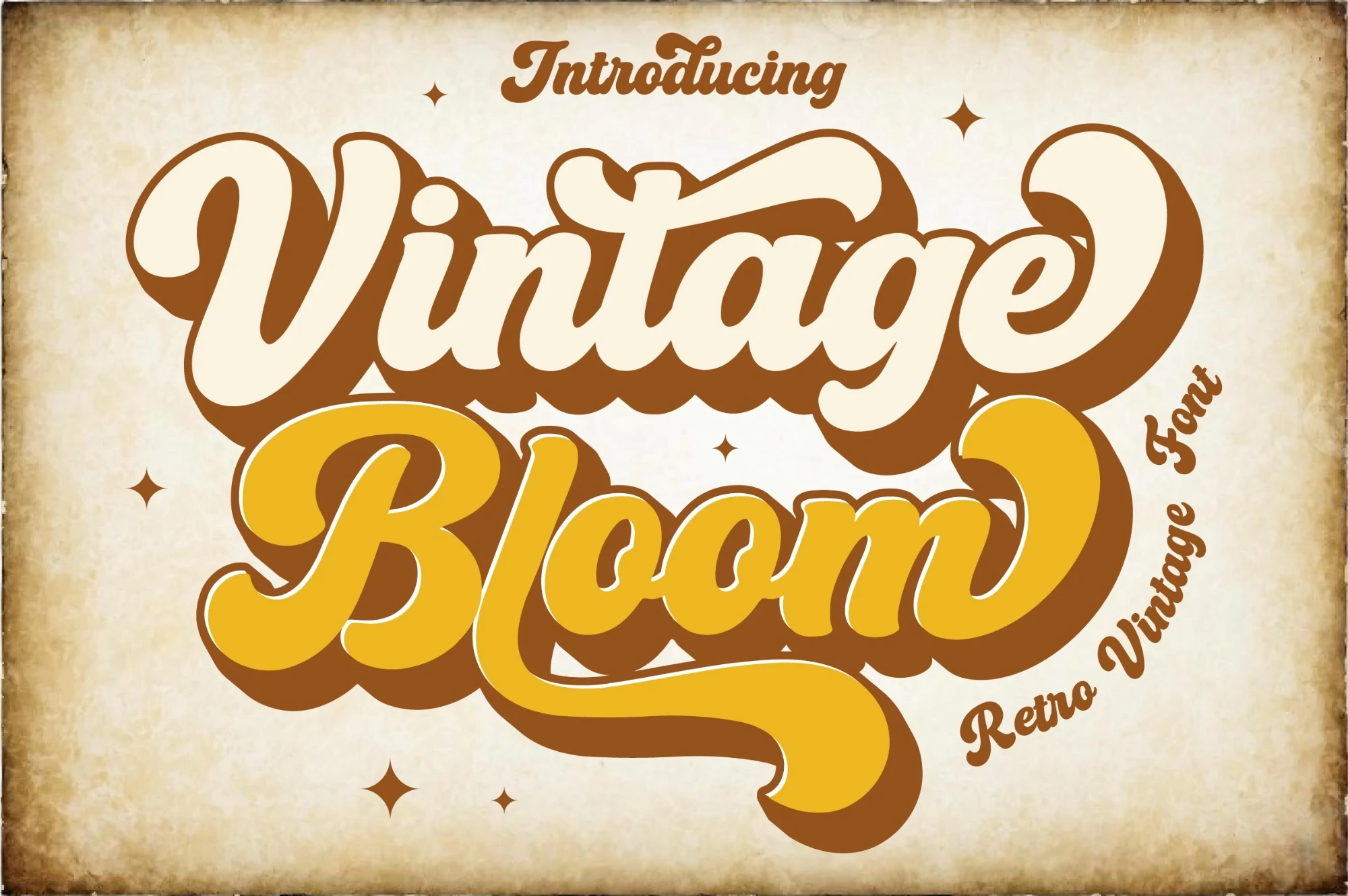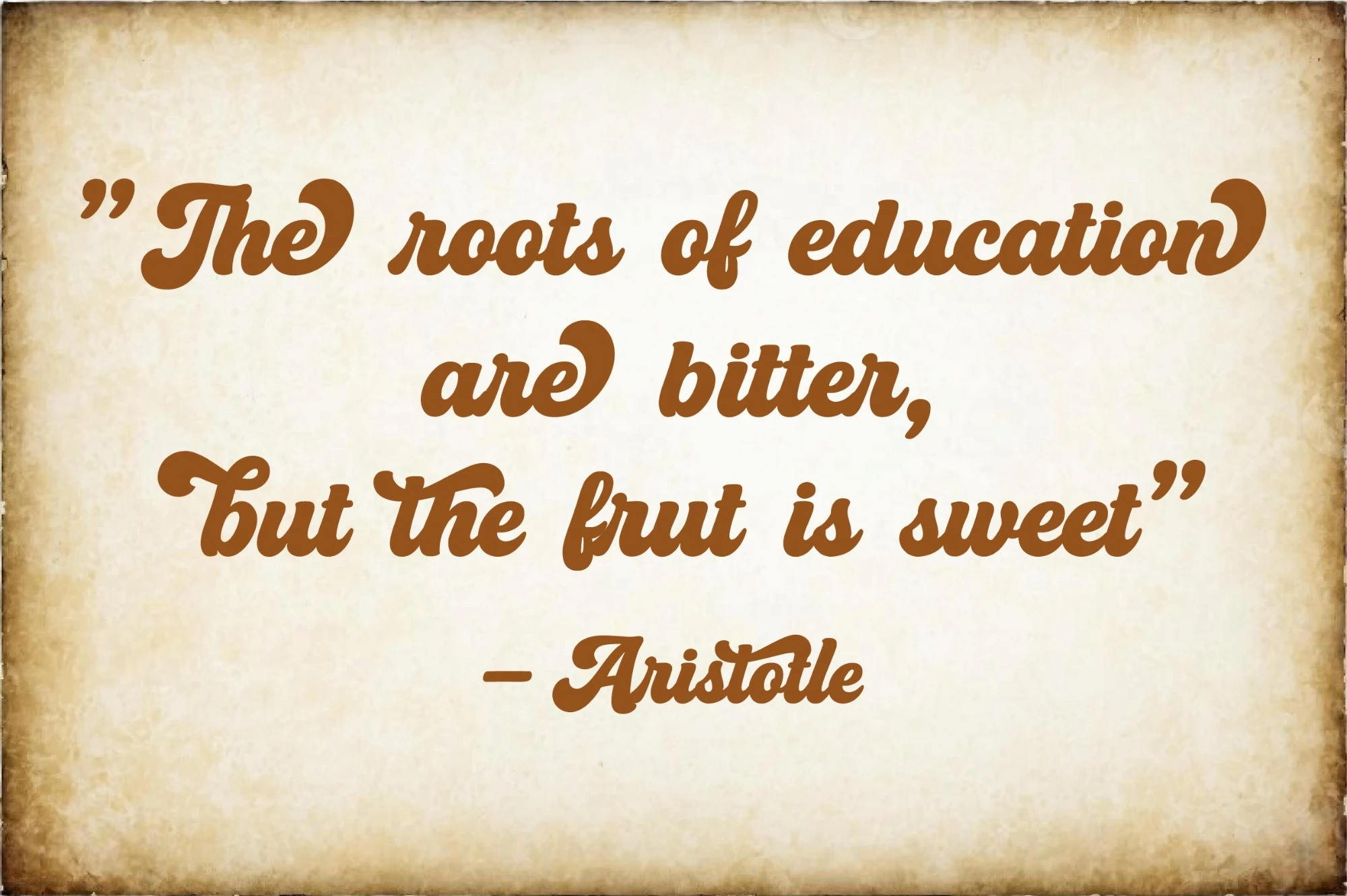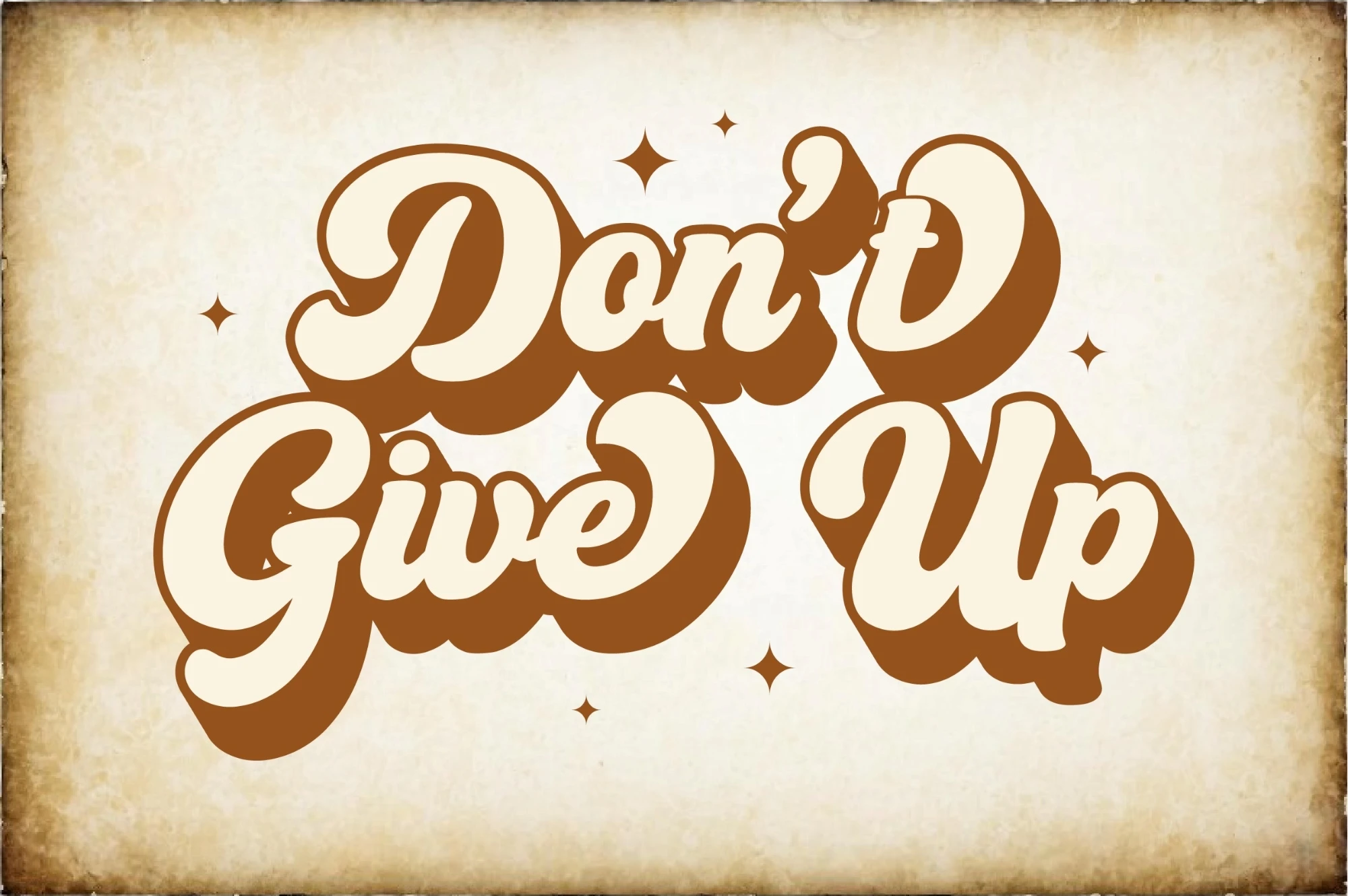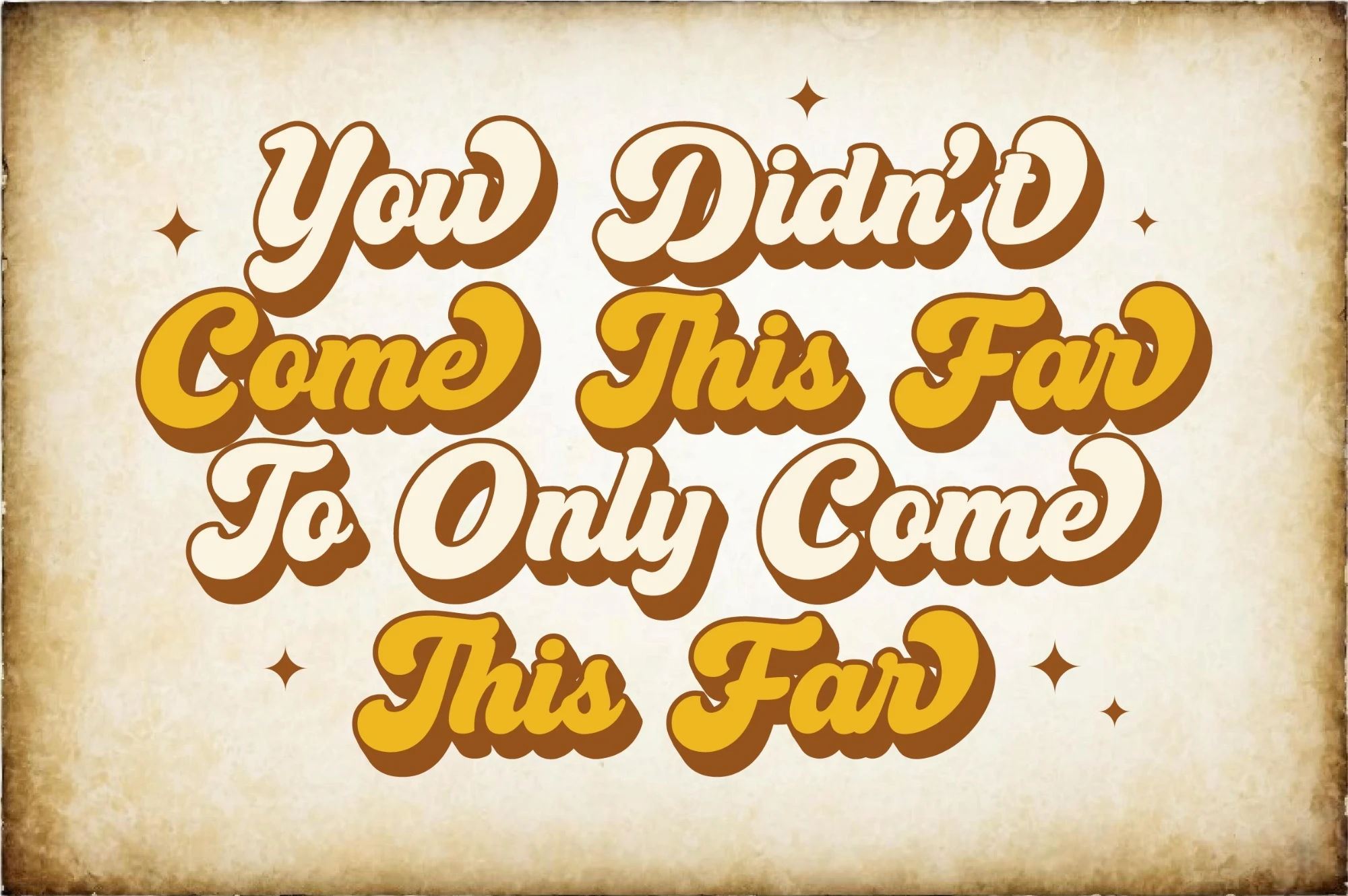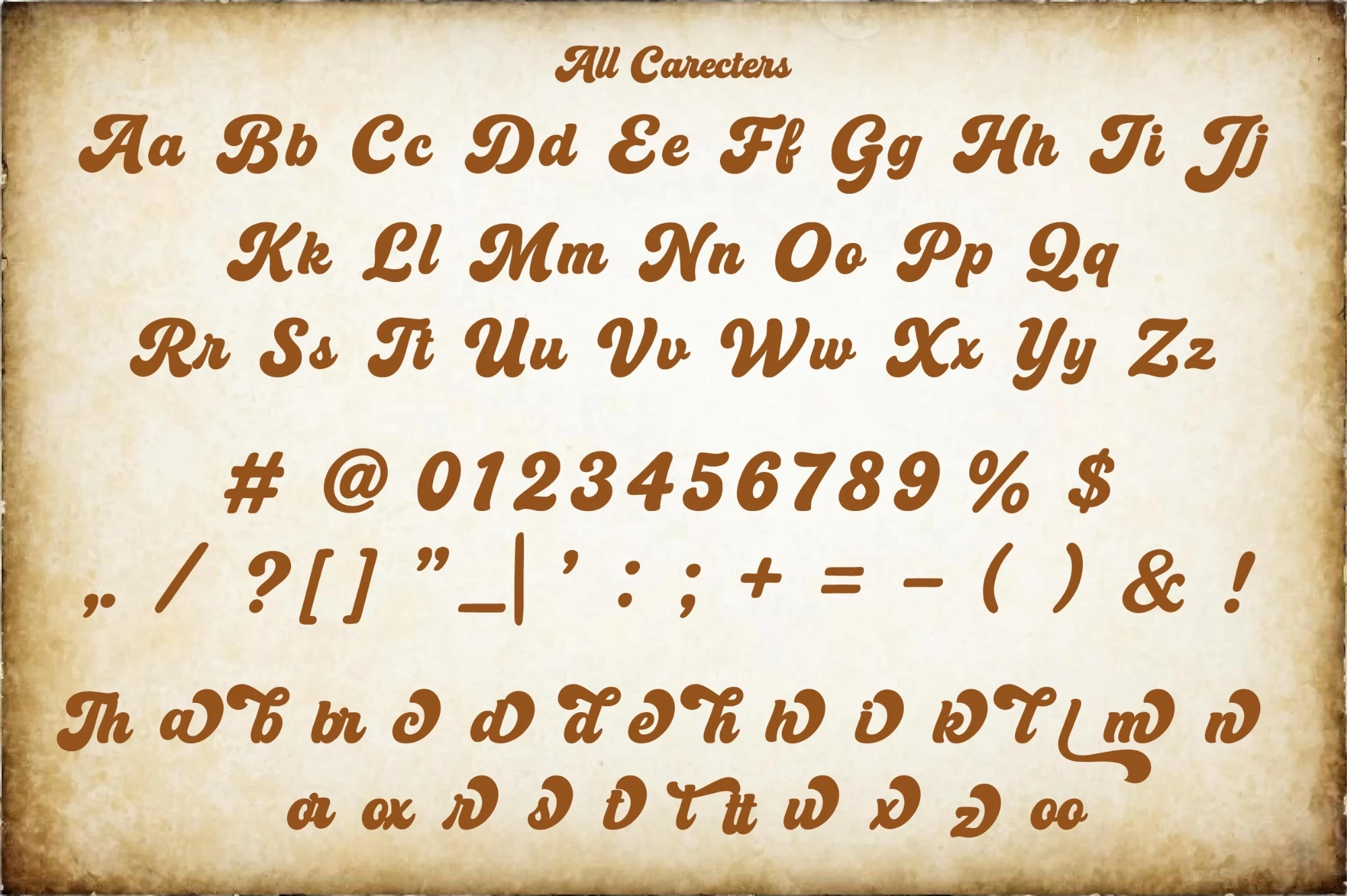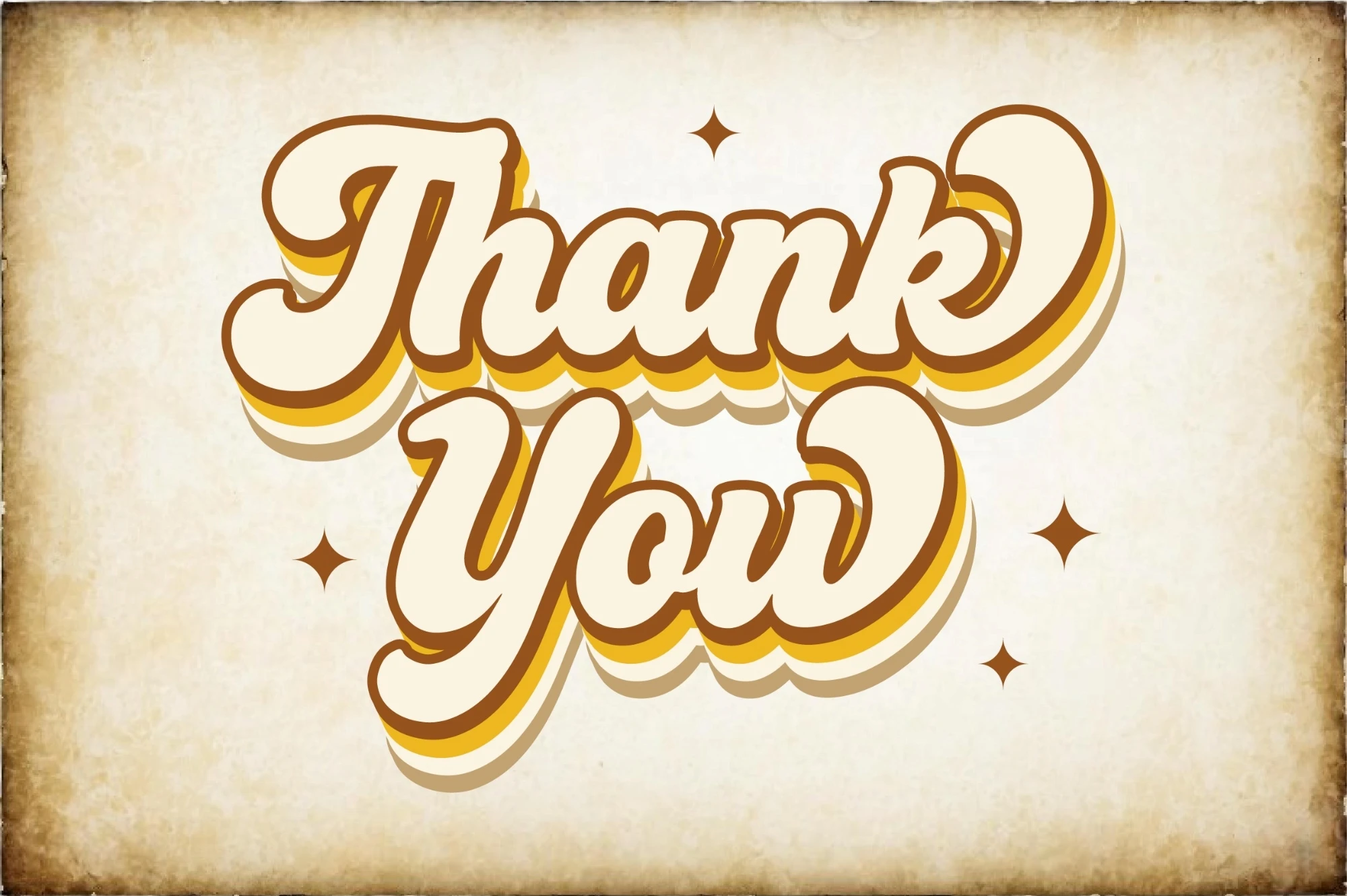
Vintage Bloom is a bold and elegant retro vintage script font with a timeless charm. Its smooth curves and playful flow bring a touch of nostalgia to any design. Perfect for logos, T-shirts, packaging, invitations, and vintage-style branding, this font adds warmth and creativity wherever its used.
Bring your words to life with Vintage Bloom a perfect blend of classic beauty and modern design.
Vintage Bloom Font